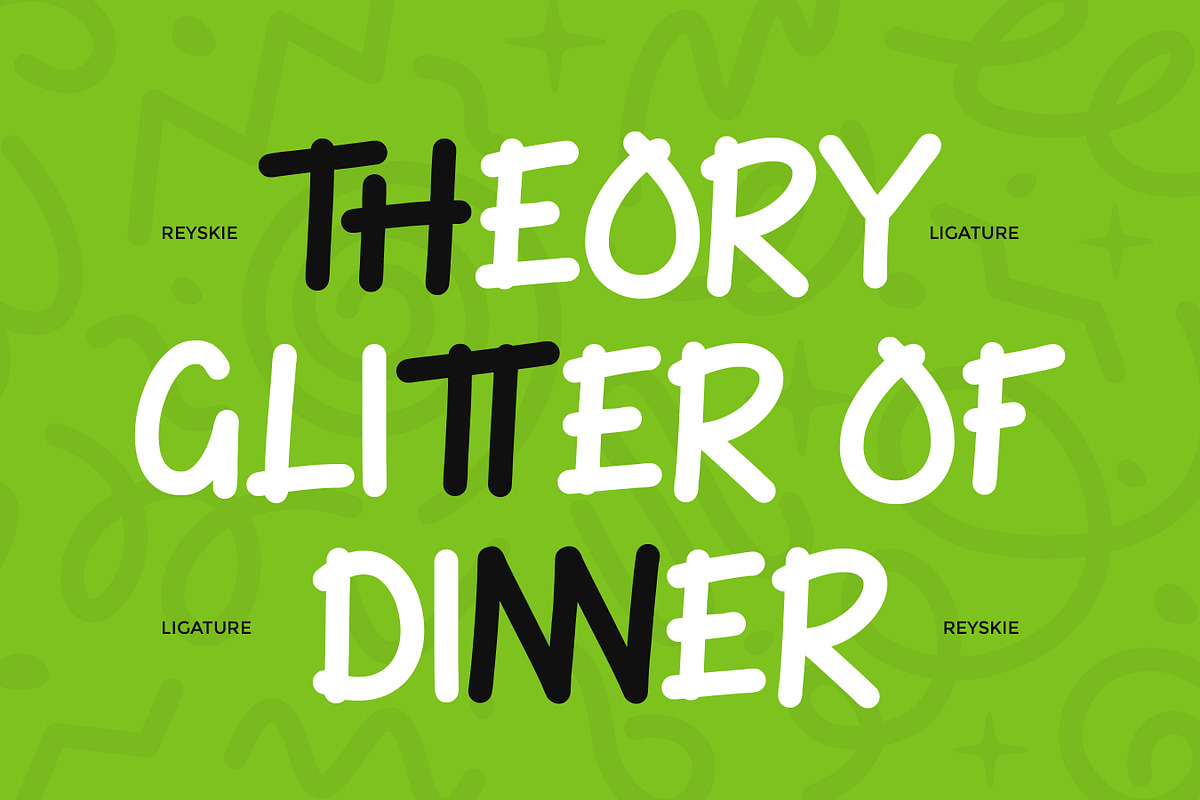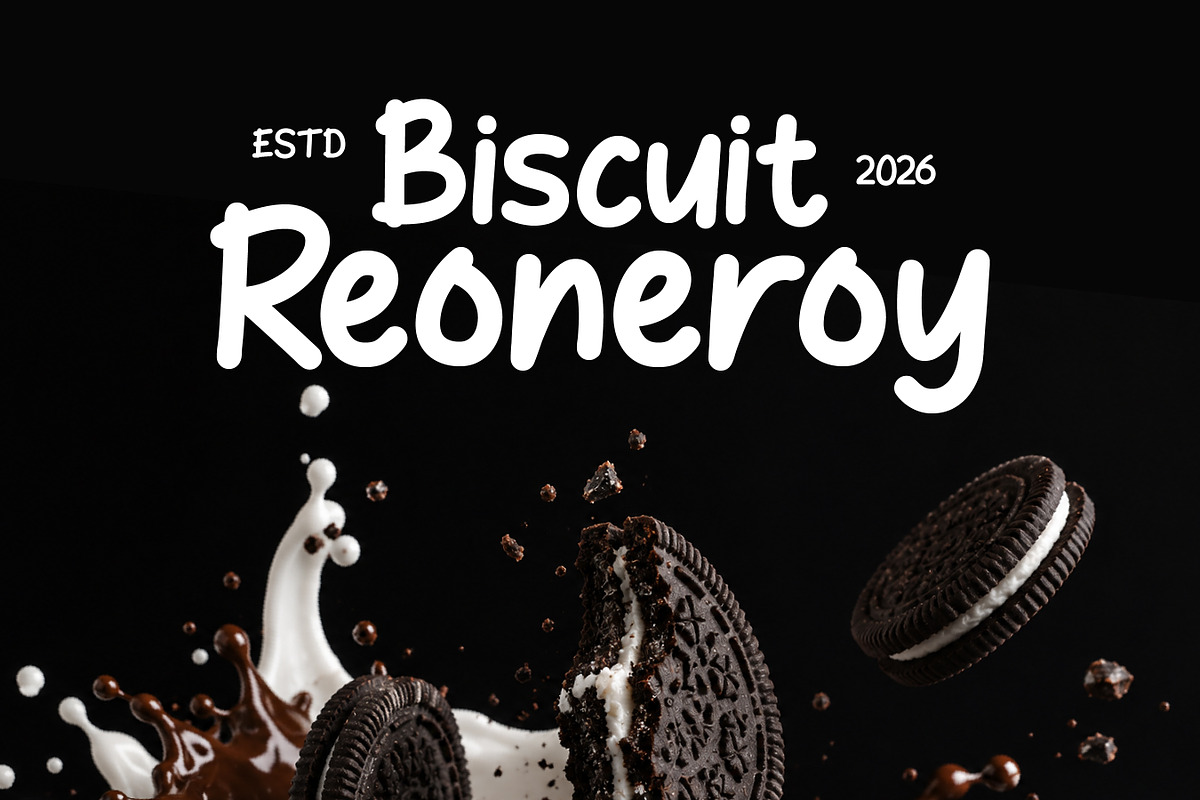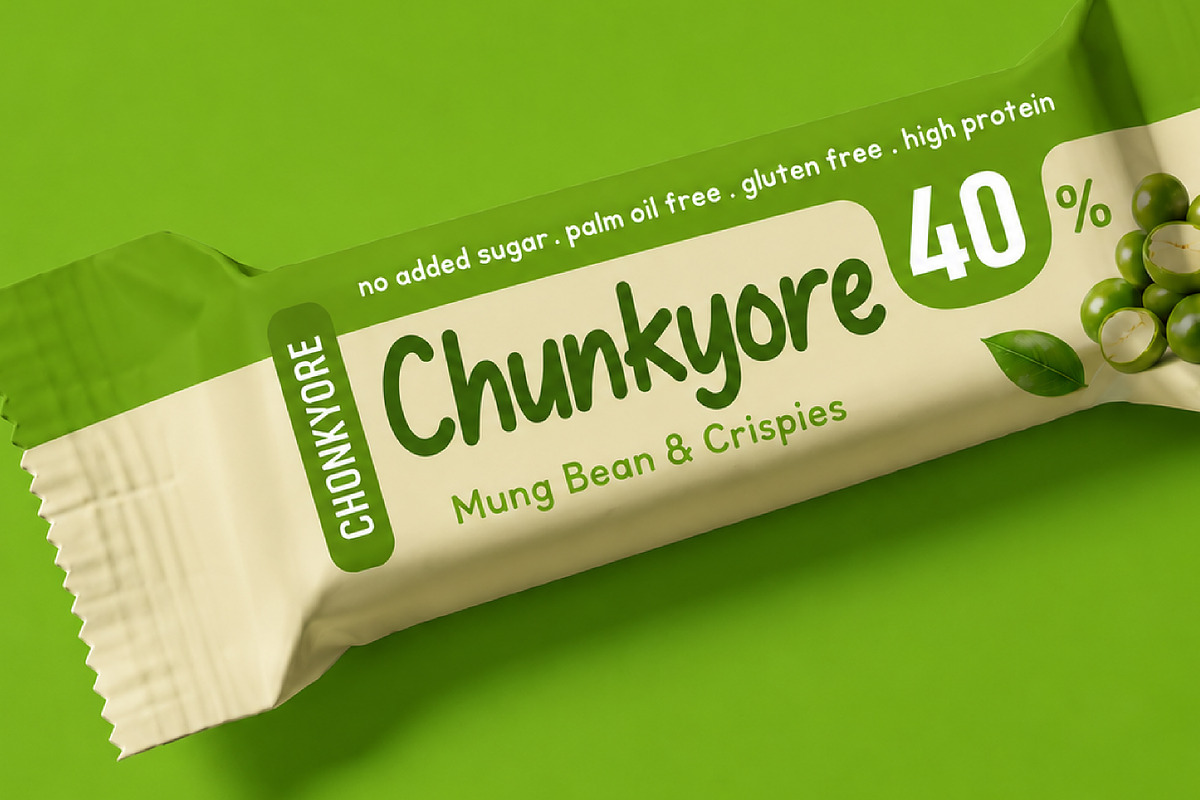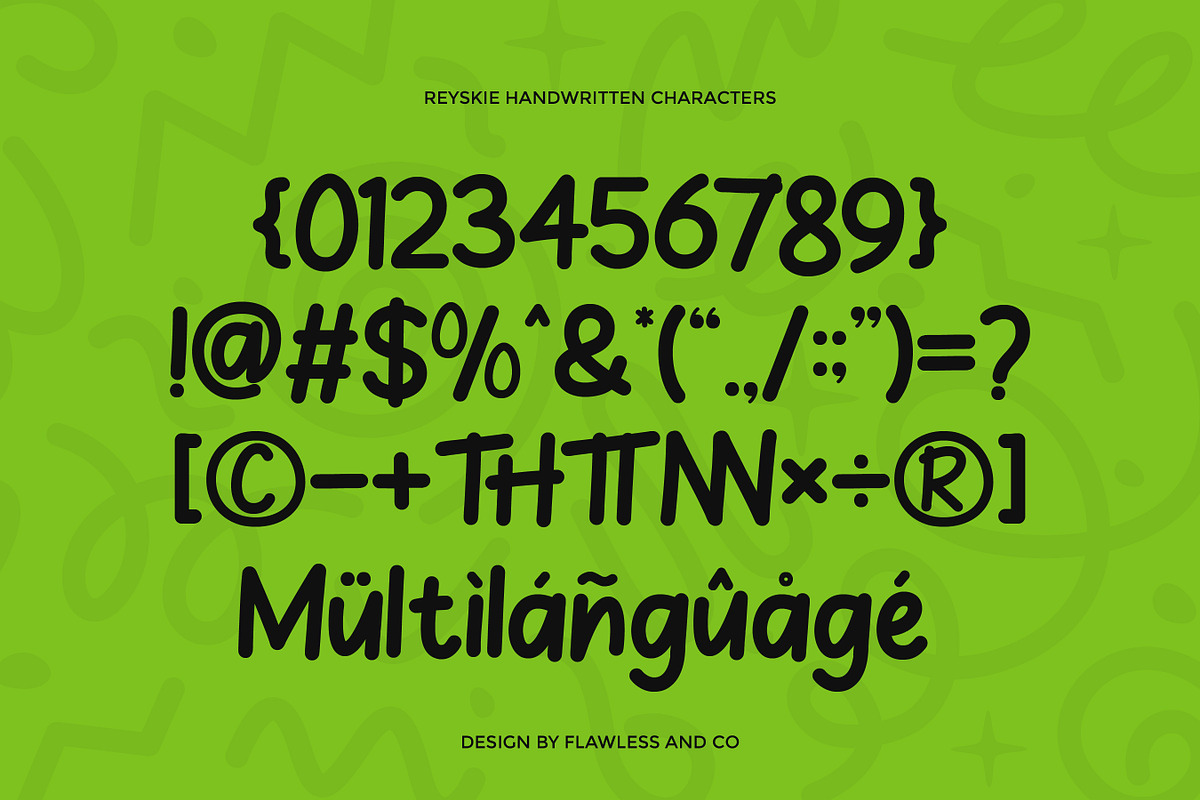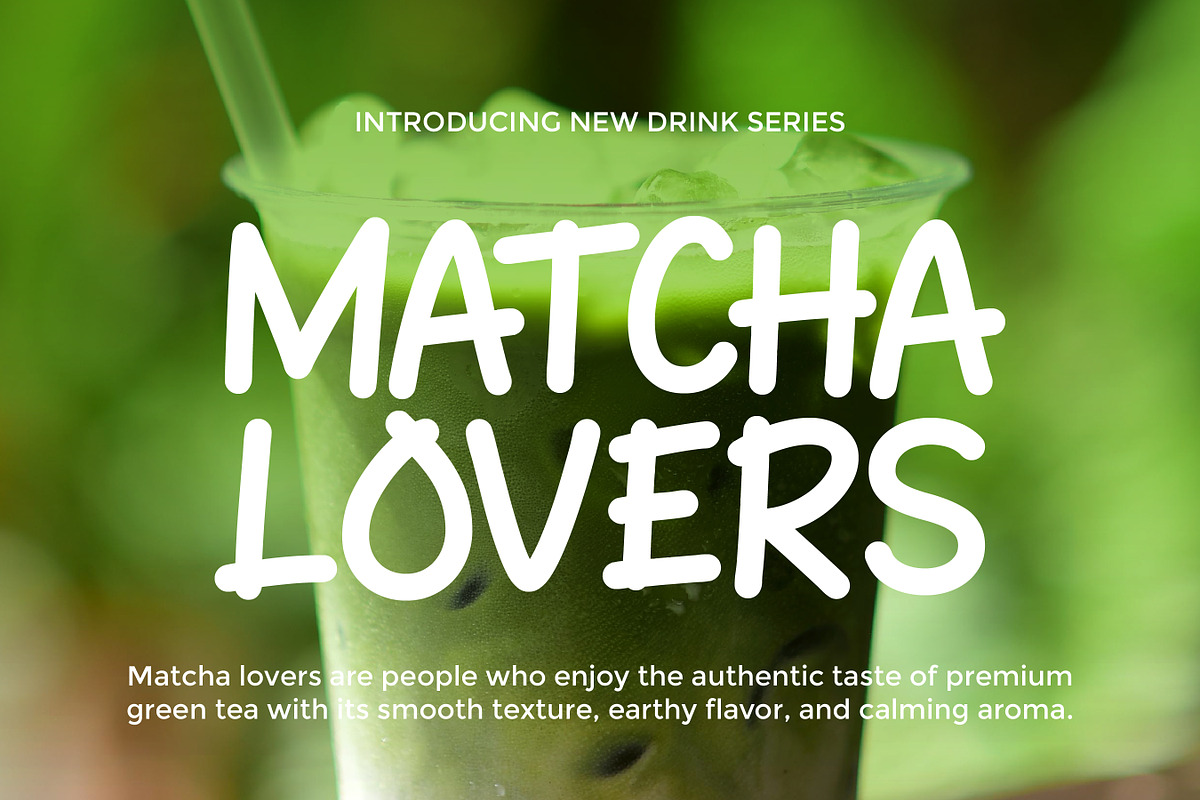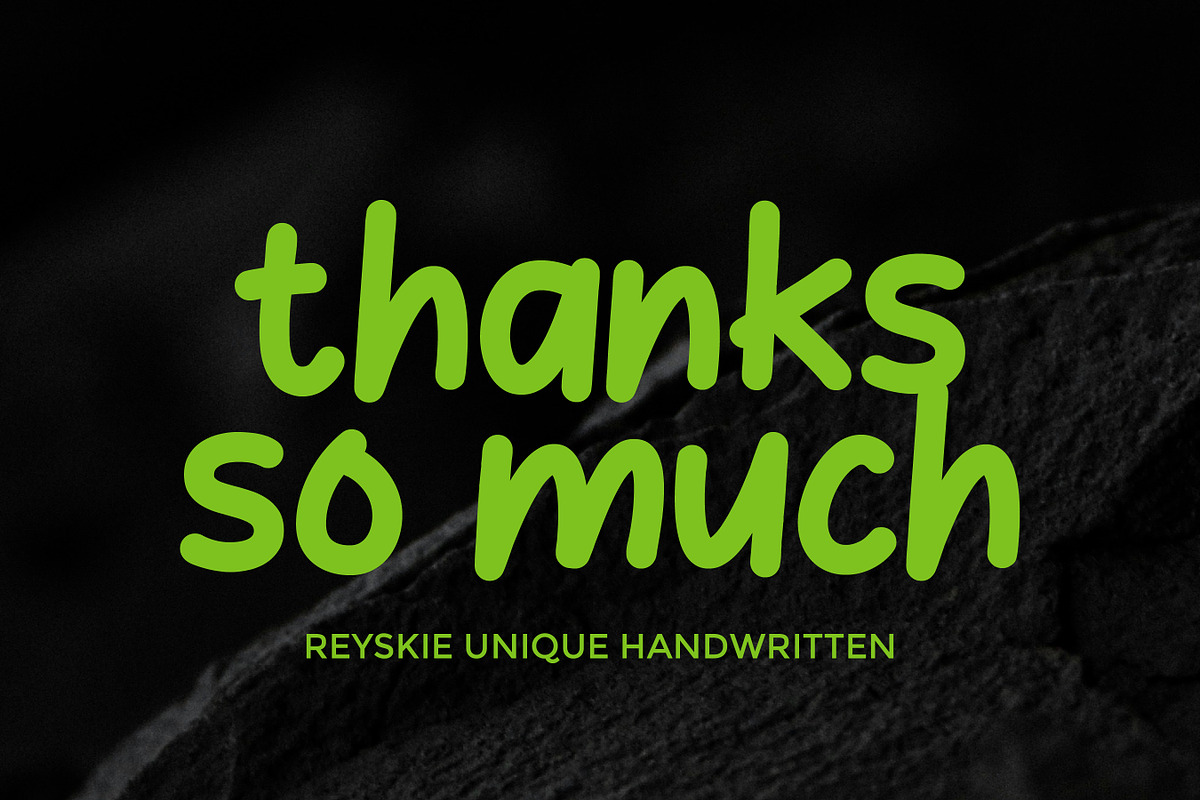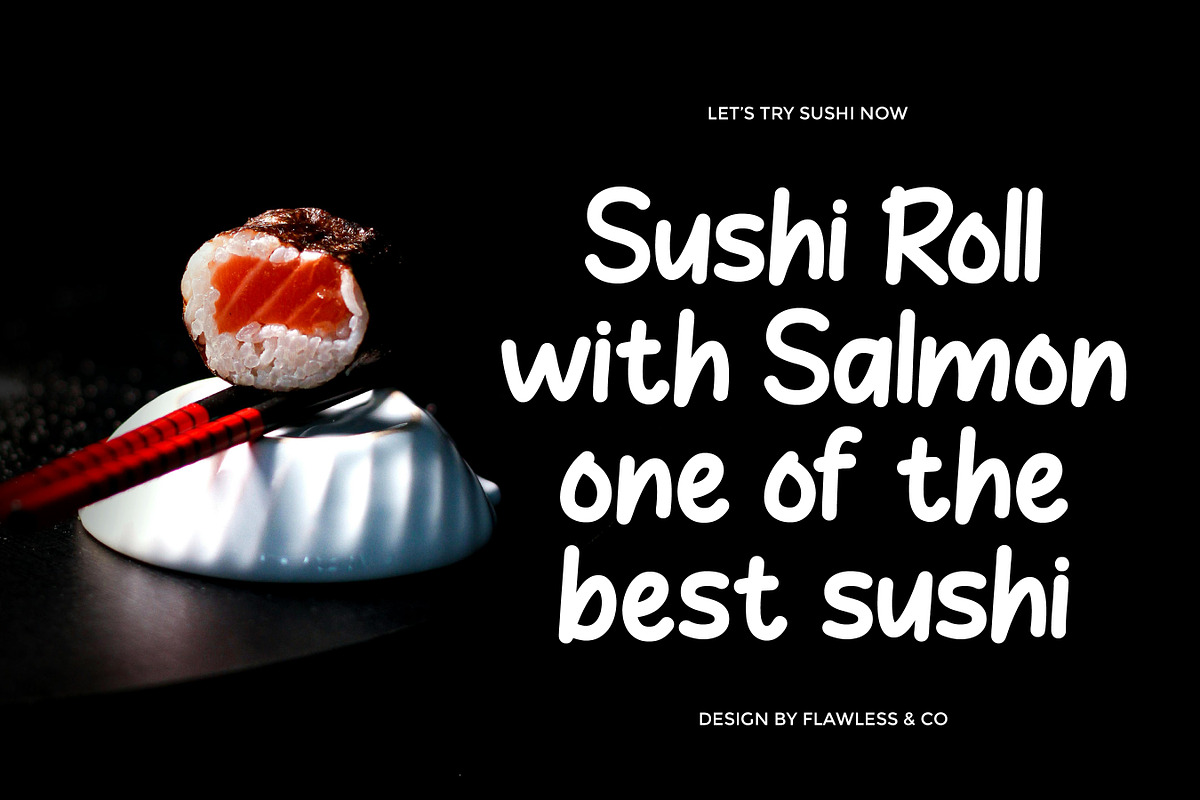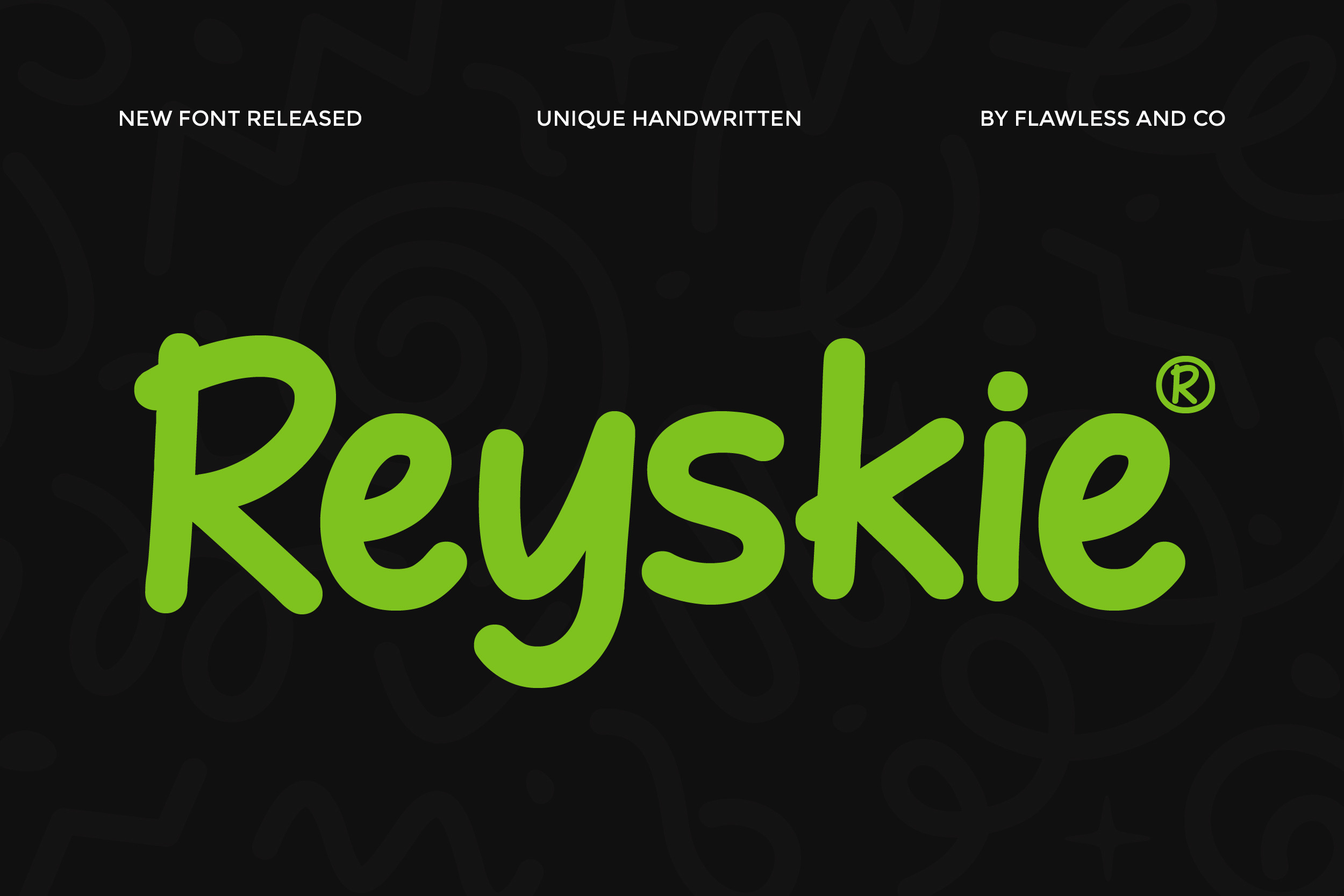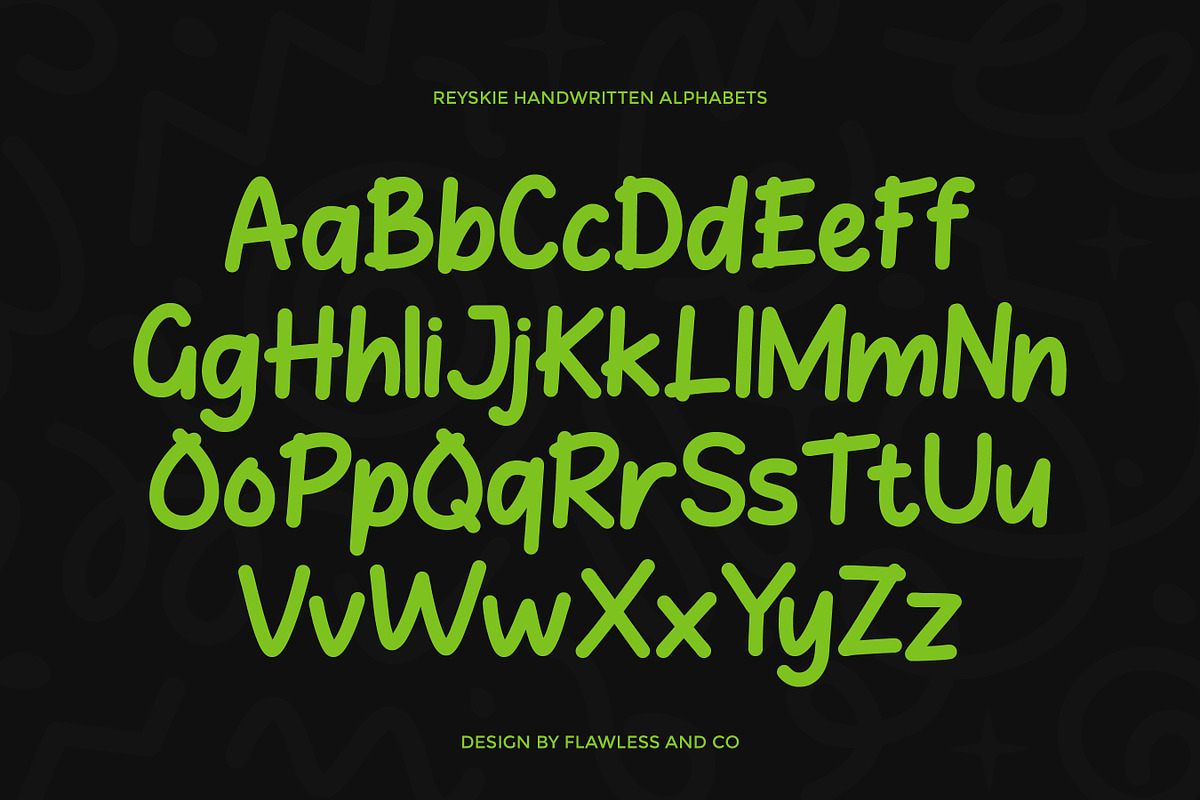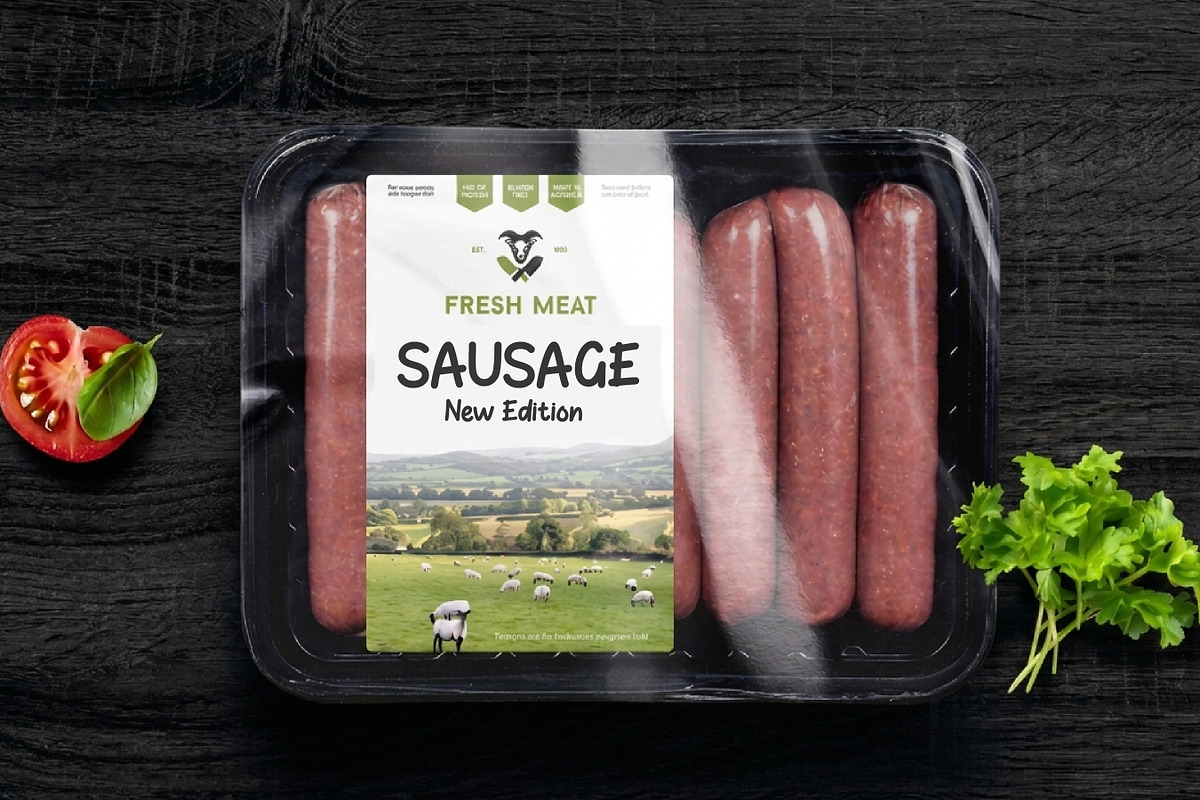
Reyskie - Unique Handwritten Font
Reyskie is a unique handwritten typeface filled with cute personality and creative charm. Designed with organic strokes, rounded shapes, and an expressive handwritten style, Reyskie creates a fun and friendly appearance that instantly makes designs feel more lively and approachable. Its unique character gives every word a stylish touch, making it perfect for projects that want to feel cheerful, warm, and memorable.
Alternates & Ligatures
Who Should Use Reyskie?
Reyskie is perfect for designers, creatives, and brands looking for a handwritten font with a cute and distinctive style. It’s especially suitable for projects that need playful typography with strong personality and visual appeal.
Suitable For:
Cute and playful branding
Kids and school projects
Social media content
Packaging and product labels
Greeting cards and quotes
Creative poster design
Fun logo and identity creation
Expressive handwritten typography